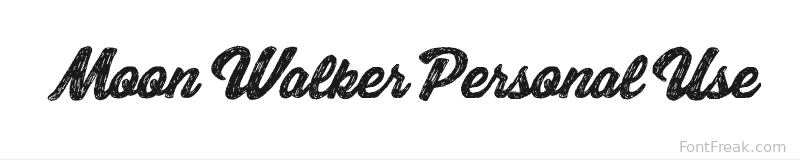
Moon Walker Personal Use
About Moon Walker Personal Use
Moon Walker Personal Use is a captivating handwritten font designed by Billy Argel Fonts, embodying a playful and artistic spirit. This font falls into the script category, characterized by its fluid, cursive strokes that evoke a sense of whimsy and creativity. The visual characteristics of Moon Walker include a moderate stroke weight and a charmingly irregular baseline, giving it a hand-drawn appearance. The spacing between letters is well-balanced, enhancing readability while maintaining its distinct style. Decorative elements are subtle yet effective, lending an organic touch that makes the font feel warm and inviting.
Ideal for a variety of creative projects, the Moon Walker Personal Use font shines in applications such as wedding invitations, where it can add a personal touch to the big day. It works beautifully on greeting cards, providing a heartfelt message with an artistic flair. This font is also suitable for crafting eye-catching movie posters, where its playful style can capture the essence of a lighthearted film. Furthermore, small business owners can utilize it for restaurant menus, creating an inviting atmosphere that resonates with customers.
Targeting graphic designers, small business owners, and content creators, this font offers an opportunity to infuse creativity into any design project. Its unique style appeals to those looking to convey a personal touch in their work, making it a favorite among creatives seeking originality.
What sets the Moon Walker Personal Use font apart is its ability to blend elegance and playfulness seamlessly. This font's unique aesthetic not only enhances visual appeal but also resonates with audiences on a personal level. For those seeking a charming typeface, the Moon Walker Personal Use font free download is an excellent choice that promises to elevate any design project.